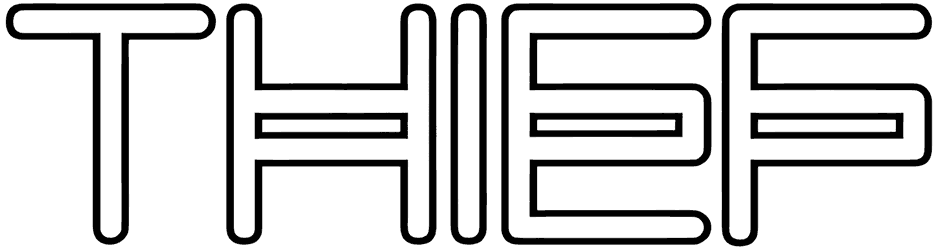
Thief Font
When you look at the Thief font, its unique design catches your eye at first glance. This fancy font has a less-seen form that is helpful for exceptional cases such as websites, social media posts, and applications.
The Thief has bordered letters with smooth edges that create a friendly vibe and entertain your audience; however, it does not support lowercase letters and several symbols. Moreover, this outline font may remind you of neon fonts with an energetic feeling.